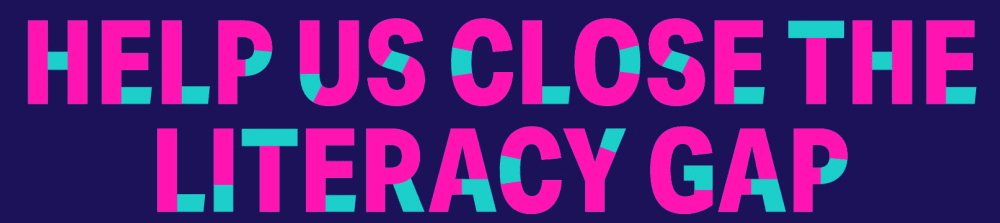
Broken typefaces are generally a problem in the design world—but this one is geared toward becoming a solution in the world at large.
Literacy Partners is an organization focused on giving parents and caregivers the tools to design better futures for themselves and their children, with an aim toward breaking the cycle of poverty and closing the achievement gap for children. This takes the form of classes, workshops and educational media—and now, a typeface.
The&Partnership worked with Literacy Partners to develop Sans 18%—a broken typeface that represents the 18% of New York City residents who don’t know how to read. In use, it provides a keyhole into what it’s like to navigate the world without a full comprehension of written language.
Previously, The&Partnership produced the “Unreadable Books” campaign for Literacy Partners—in which they took bestsellers in a Soho bookshop and scrambled the letters on the covers to give readers an insight into living with illiteracy.